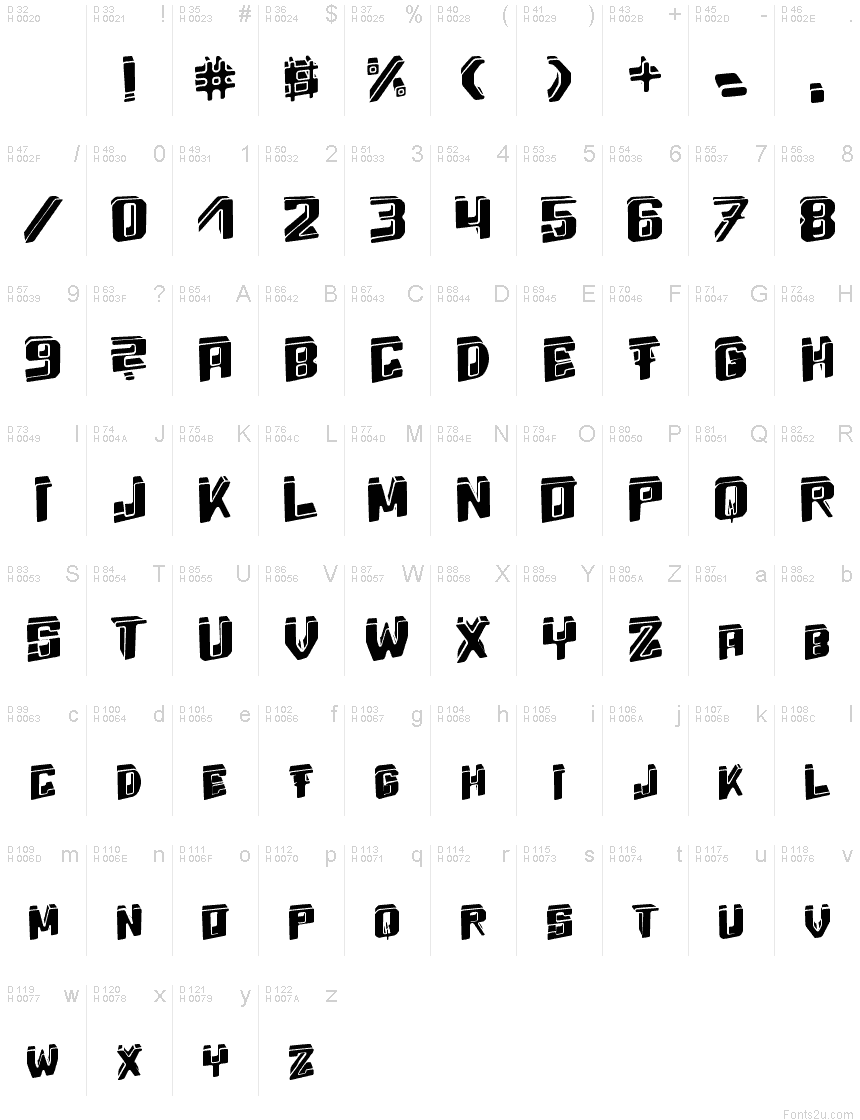
Energydimension
Energydimension font by Dieter Schumacher is a free 3D display font and typeface that looks like it’s been yanked forward at high speed. Chunky, slightly slanted letters with carved-out inner facets create a bold, sci‑fi shadow effect that feels kinetic and loud, even in a single word.
Using Energydimension, you get instant arcade and futurist energy for gaming logos, sci‑fi posters, rave or club flyers, energy drink concepts, YouTube thumbnails, and bold event titles. This free font works best in large sizes; pair it with a simple, unobtrusive sans-serif for supporting text so its angular 3D forms stay in the spotlight.